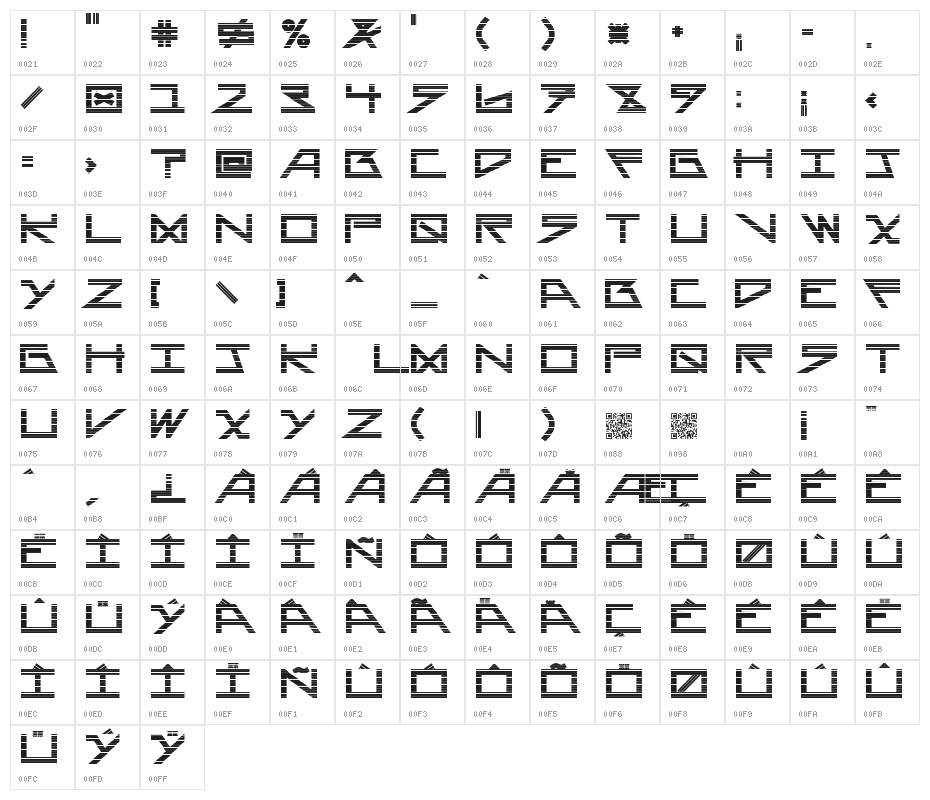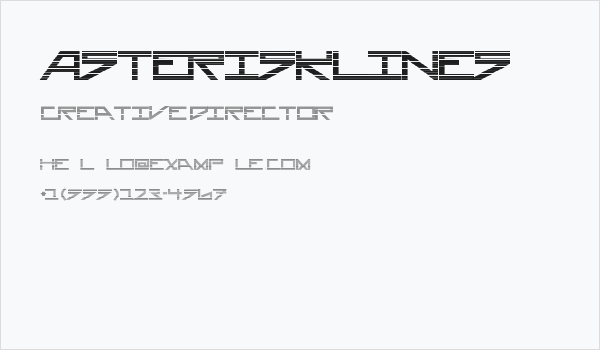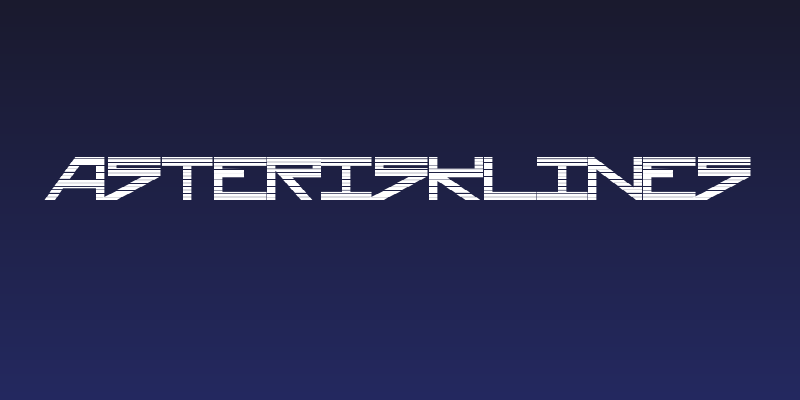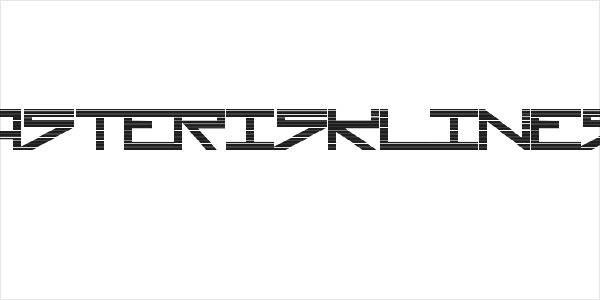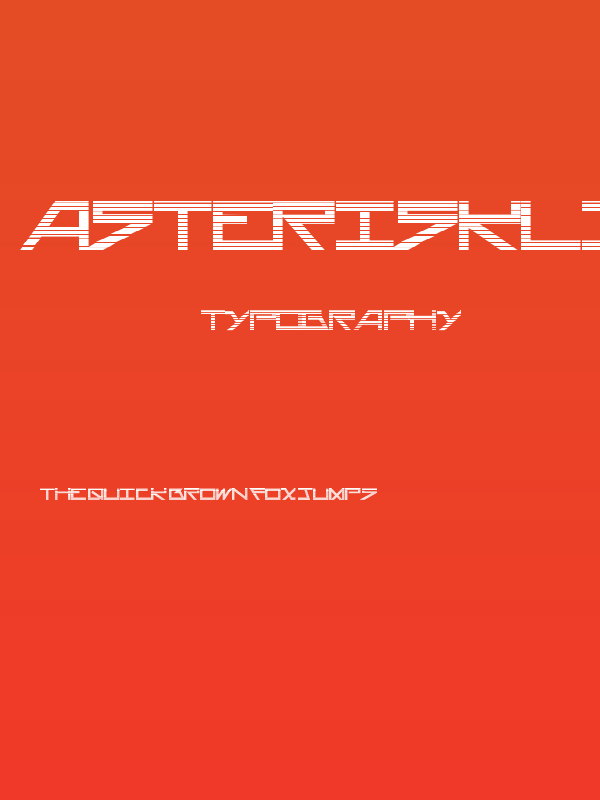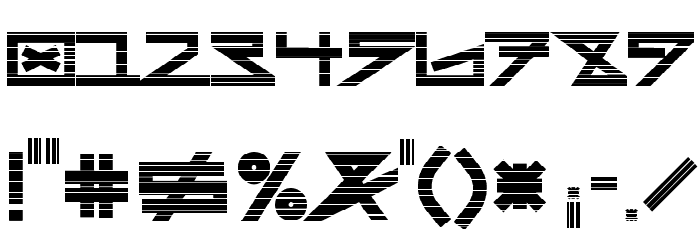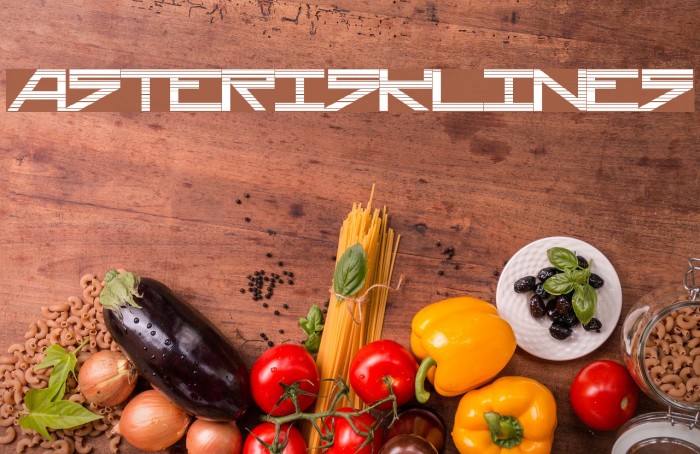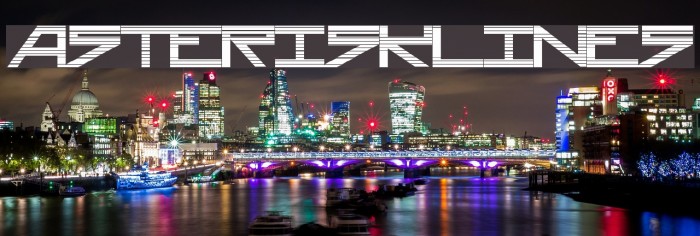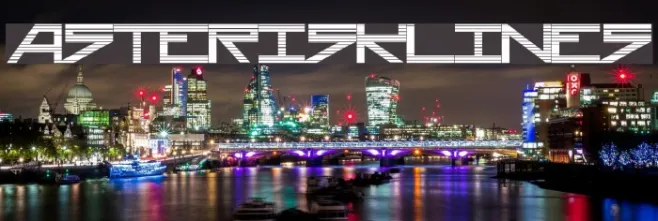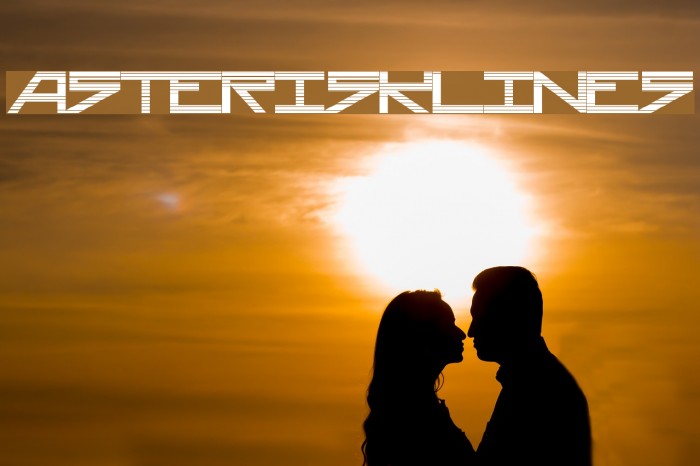
AsteriskLines Font
AsteriskLines Description
This font features a highly geometric and futuristic design, characterized by its use of horizontal lines and sharp angles. Each character is constructed with a series of parallel lines, creating a striped effect that gives the font a unique, modern appearance. The angular shapes and linear elements contribute to a sense of movement and dynamism, making it stand out in any design. The uppercase and lowercase letters maintain a consistent style, while the numbers and special characters are equally distinctive, ensuring a cohesive look across all text elements.
| Proposed Projects | Ideal for sci-fi themed projects, modern branding, tech-related designs, and innovative advertising campaigns. |